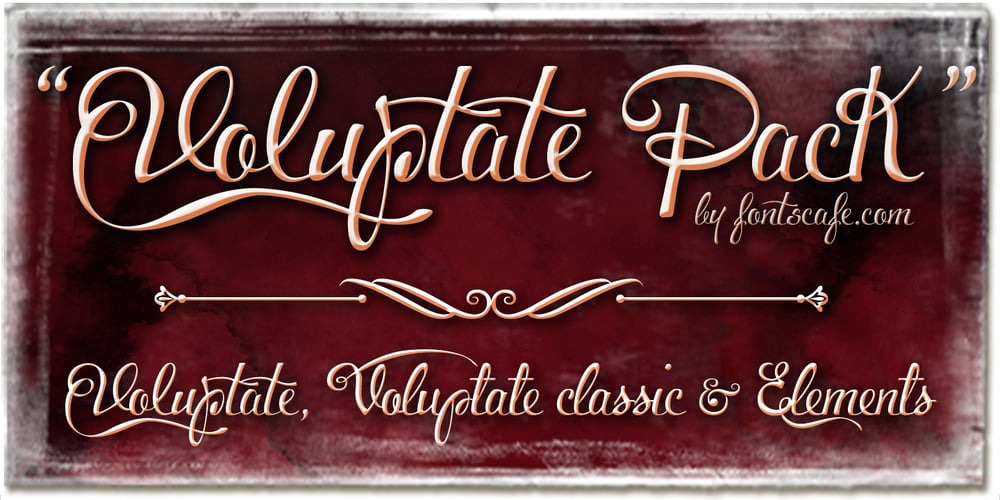
Voluptate Font Family was designed by published by Fontscafe. Voluptate contains 3 styles and family package options. The “Voluptate Pack” font is a smart sophisticated handwriting pack that includes ‘Voluptate’, ‘Voluptate Classic’ and ‘Voluptate Elements.’ Every single character in our ‘Voluptate’ font distinct and given every letter a unique identity – very much like a person’s handwriting. Of course the characters are similar enough to work hand in hand, but not so similar as to appear as an obviously computer generated type set. The ‘Voluptate Classic’ is very similar in design and ever so slightly informal in its appearance. A thoughtful mix-and-match of both these fonts can give a delightful appearance to your designs. You could use the Voluptate on most areas of the text for example, and the ‘classic’ to emphasize a more personal touch to certain areas, say for example where you may be quoting somebody’s word. When you get the pack you also get a handy ‘Voluptate Elements’ set of designs that can enhance your creations in so many ways. All 3 are available individually, but it’s like getting the elements for free when you buy the pack.